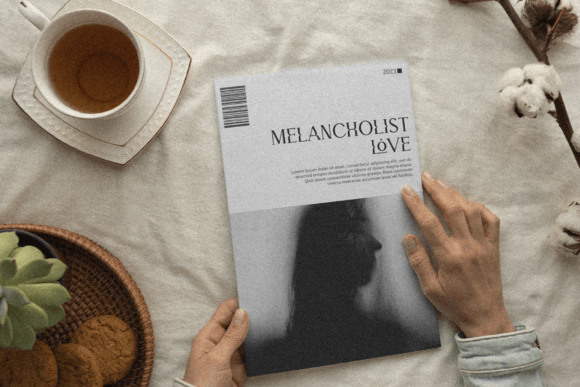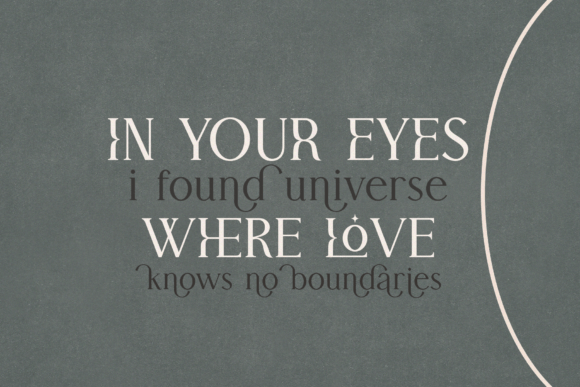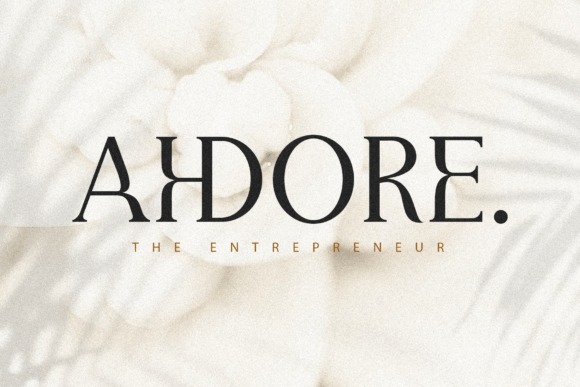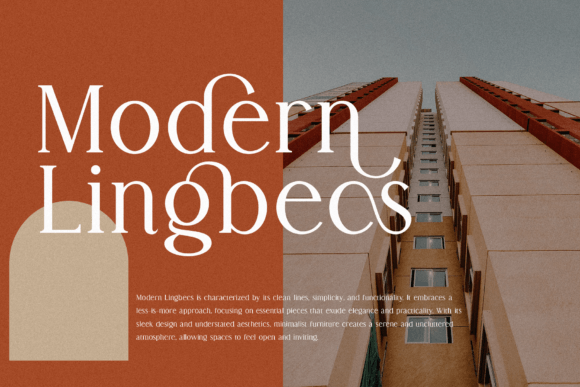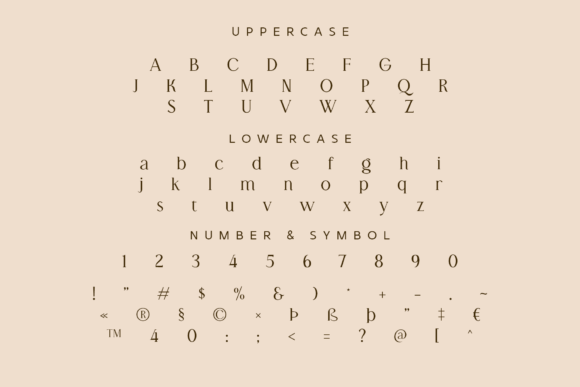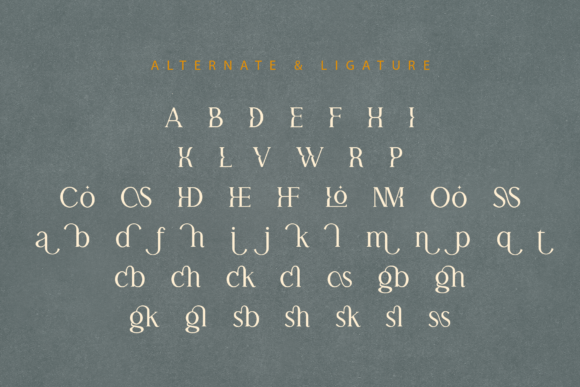
Introduction to Moodisst Font
Have you ever stumbled upon a font that instantly sparks your creativity and inspires you to dive headfirst into a new project? For me, that moment came when I discovered the breathtakingly beautiful Moodisst Font. As a designer, I can confidently say that this elegant and bold serif font is a game-changer.
With its incredibly versatile style, Moodisst Font is the perfect design resource for any creative project. Whether you’re crafting gorgeous wedding invitations, designing beautiful stationary art, or creating eye-catching social media posts, this high-quality font is sure to elevate your work to new heights. And the best part? It’s available for free download, making it an accessible and valuable addition to any designer’s toolkit.
So, what makes Moodisst Font so special? For starters, its transparent background allows for seamless integration with any design, while its sophisticated aesthetic makes it perfect for adding a touch of elegance to any project. Whether you’re a seasoned designer or just starting out, Moodisst Font is a must-have resource that’s sure to inspire your next creative project.
Key Features of Moodisst Font
• High-quality font design ideal for creative projects requiring a unique aesthetic.
• Transparent background, allowing for easy layering and customization in design software.
• High-resolution design, suitable for printing at 300 DPI or higher, ensuring crisp and clear text output.
• Designed to be versatile, Moodisst Font can be used for a wide range of creative projects, from digital art to print materials.
• Includes a comprehensive character set, covering multiple languages and providing a robust design resource for designers and artists.
Honest Review: Moodisst Font
I recently stumbled upon the Moodisst Font while searching for a free download to enhance my creative project. I must say, I was pleasantly surprised by its high quality and unique style. ✨ The font is perfect for designers who want to add a touch of elegance and sophistication to their work.
Here are some of the features that I appreciate about the Moodisst Font:
• High-quality design that’s perfect for creative projects
• Transparent background, making it easy to use with any color or image
• Easy to customize and use in various design applications
However, I did notice a few limitations: ⚠️ the font only comes in a few weights and styles, which may not be suitable for all design projects. Additionally, the font may not be compatible with all operating systems or design software.
Overall, I’m impressed with the Moodisst Font and would recommend it to designers looking for a high-quality, free design resource. While it may have some limitations, its unique style and ease of use make it a valuable addition to any design toolkit.
Using Moodisst Font in Creative Projects
The Moodisst Font is perfect for creative projects that require a unique and stylish touch. Whether you’re working on a graphic design, digital art, or writing a book, this font is sure to add a professional and high-quality feel to your work.
Tips for Getting the Most Out of Moodisst Font
To get the most out of the Moodisst Font, use it with a transparent background to create a stylish and modern look. Experiment with different font sizes and styles to add depth and interest to your design.
Common Use Cases for Moodisst Font
The Moodisst Font is commonly used for a variety of purposes, including:
• Graphic design and digital art
• Book and magazine publishing
• Website and social media design
• Business and marketing materials
Q: Does the Moodisst Font include a transparent background?
Yes, the Moodisst Font includes a transparent background option, allowing you to easily create designs with a seamless background. This feature is particularly useful for designers working with complex compositions and layered designs.